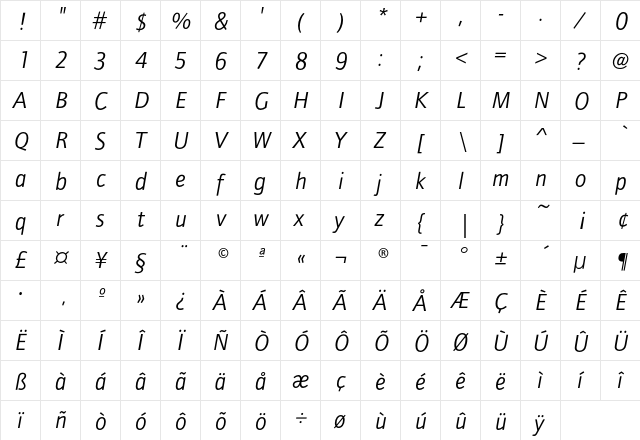
FoundryJournal-BookItalic Regular
Design Context for FoundryJournal-BookItalic Typeface
FoundryJournal-BookItalic takes a measured approach to typography — its balanced proportions and neutral character make it a reliable workhorse for both digital and print work. The slanted form adds forward momentum and visual energy.
Pro Tip: Try FoundryJournal-BookItalic for annotation and caption copy alongside an upright companion — the contrast in angle creates a dynamic but ordered typographic system.